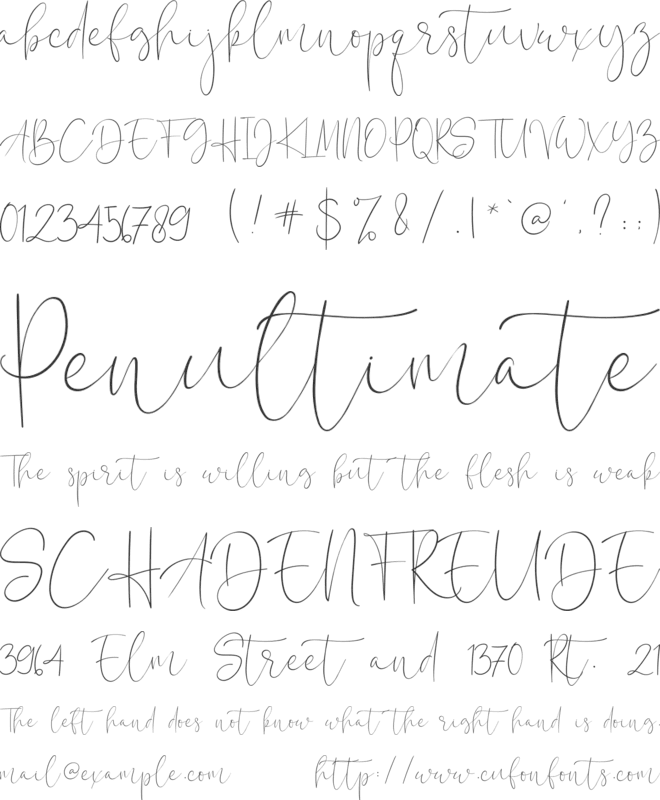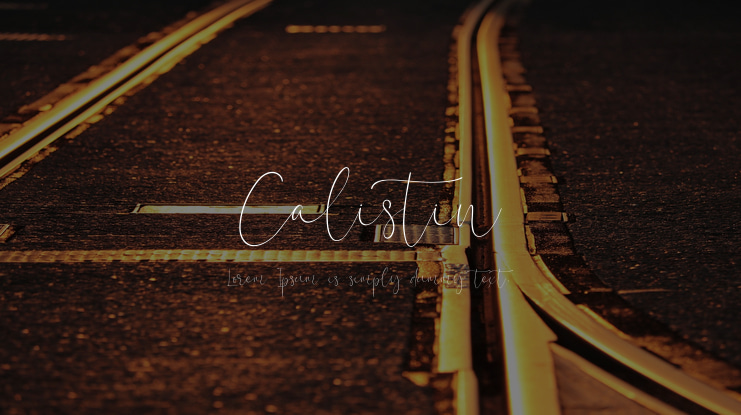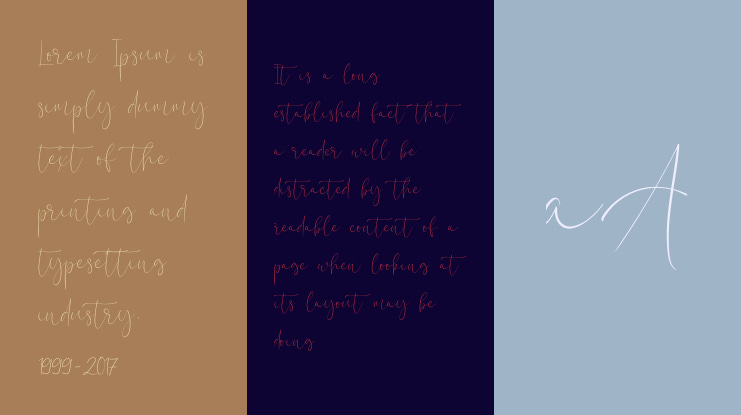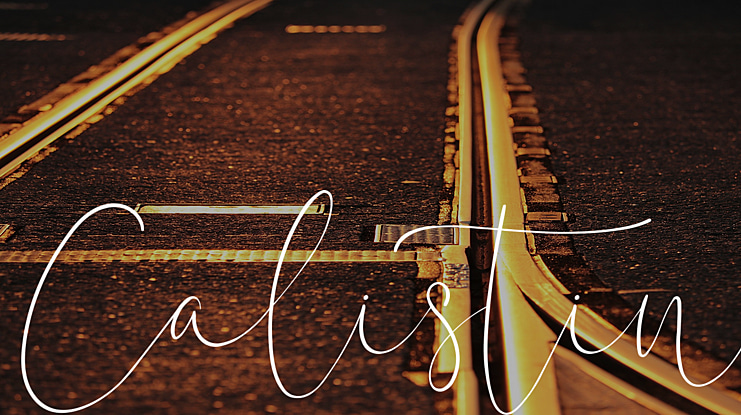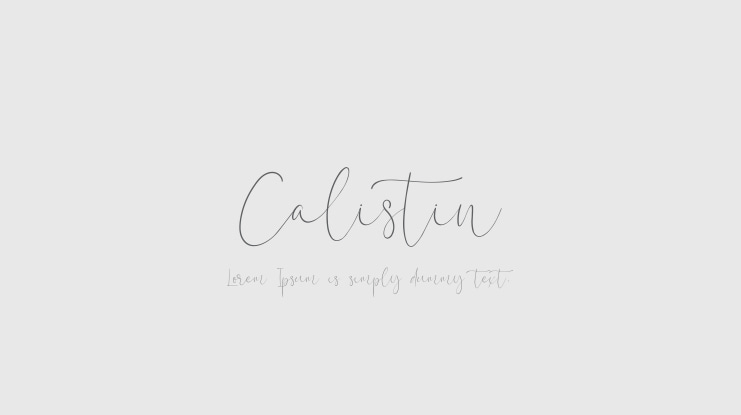
Calistin Font Family
Staircase Studio
Calistin Script Typeface. A collection of letters and numbers suitable your projects also great for Logotype, Branding Design, Logo Design, Digital Lettering Arts, T-Shirt/Apparel, Poster, Magazine, Signs, Advertising Design, and any design needs.